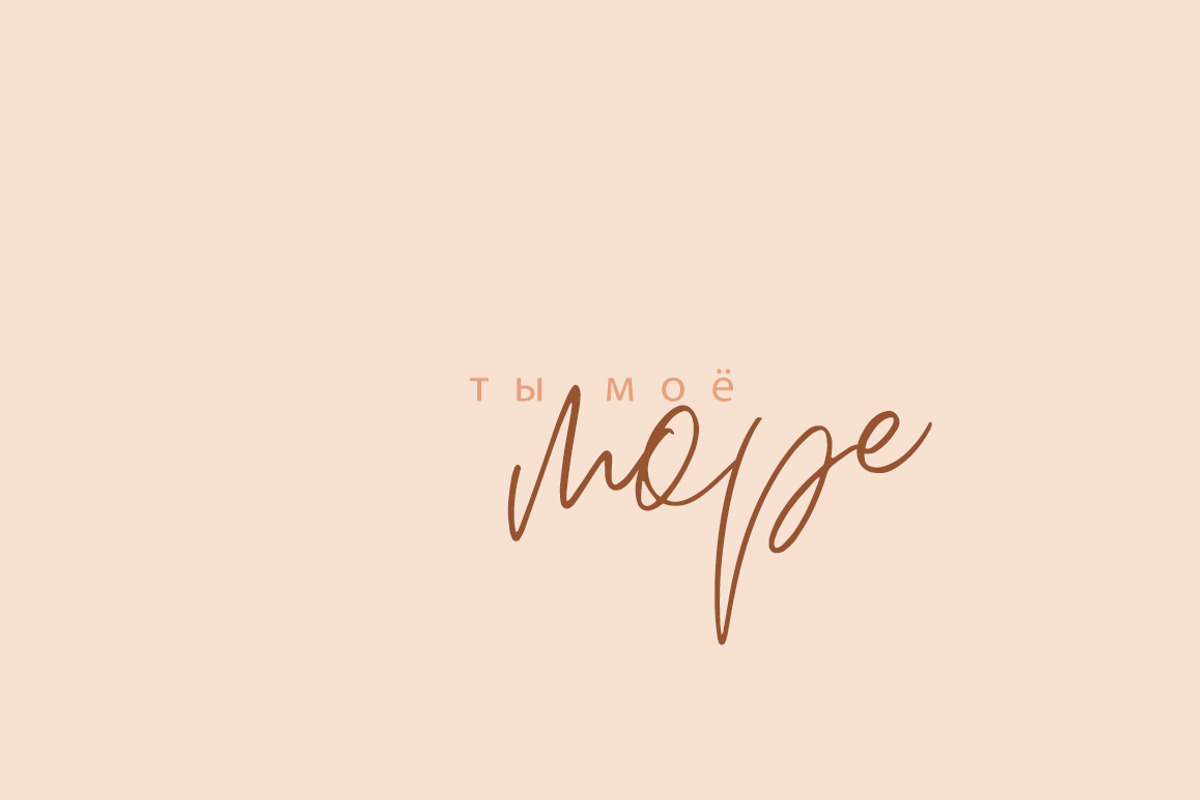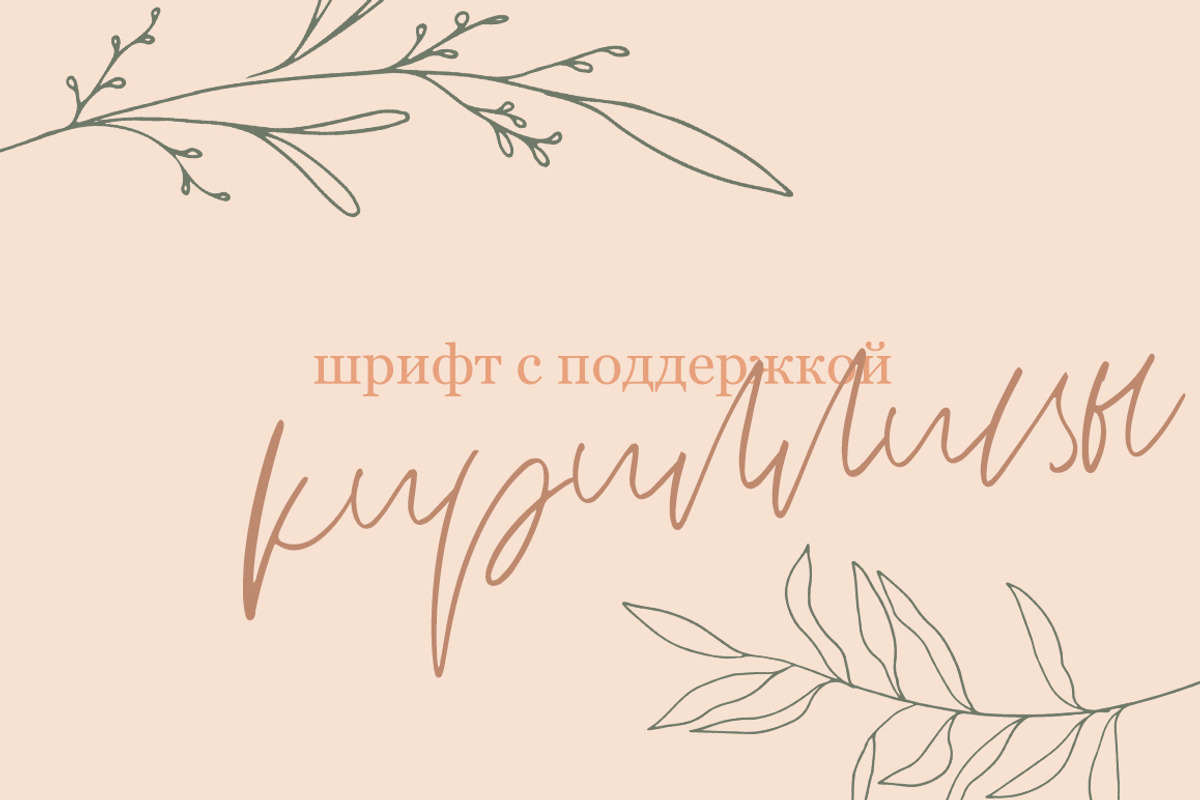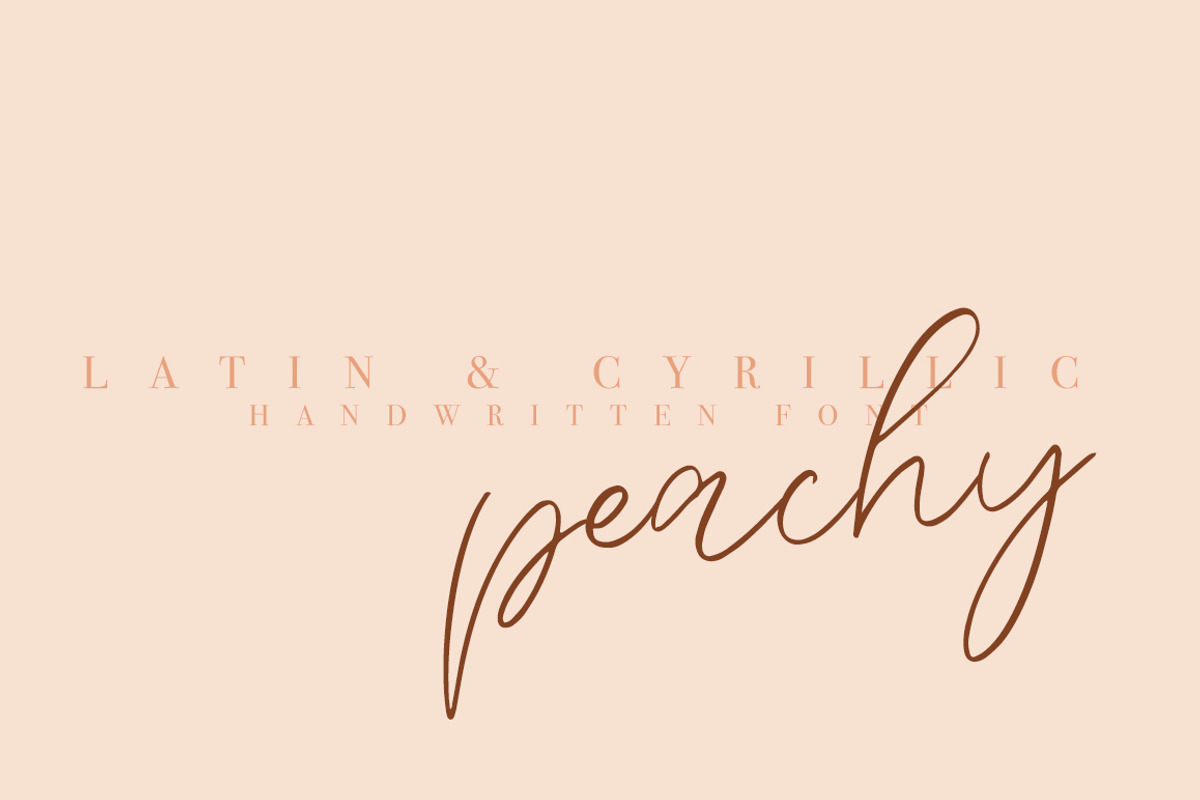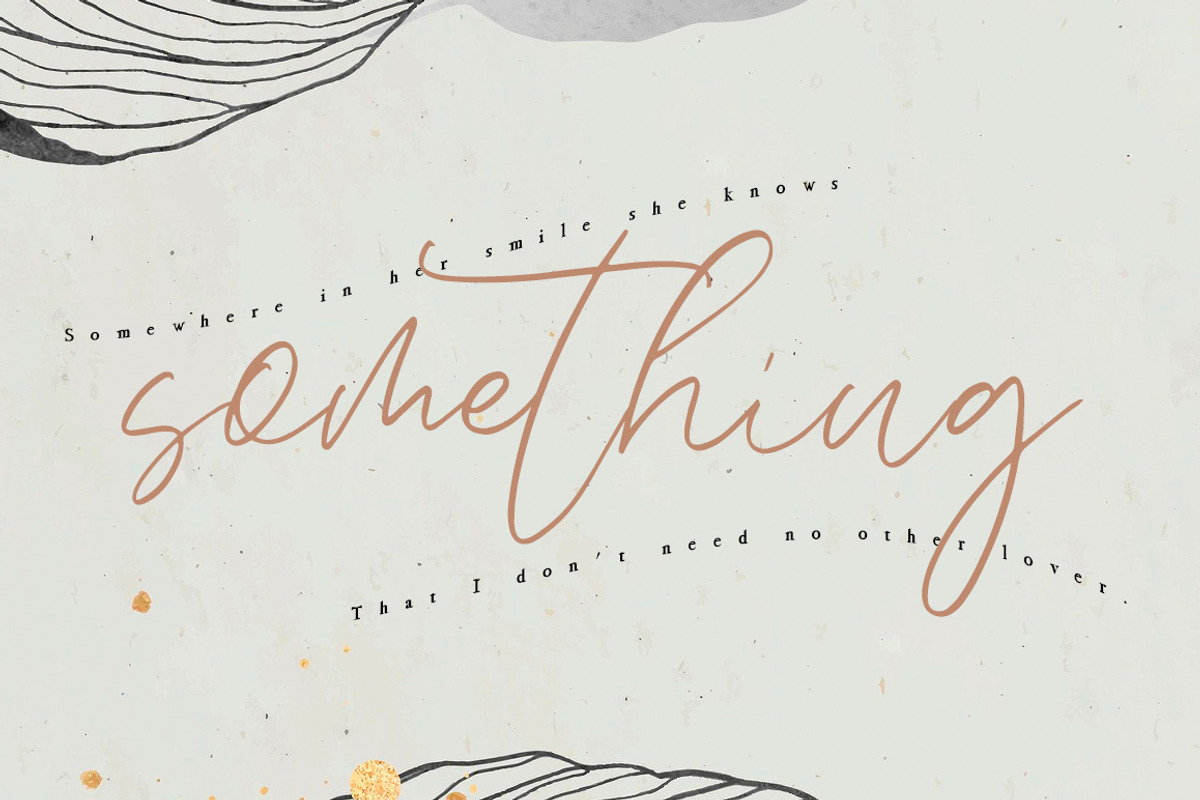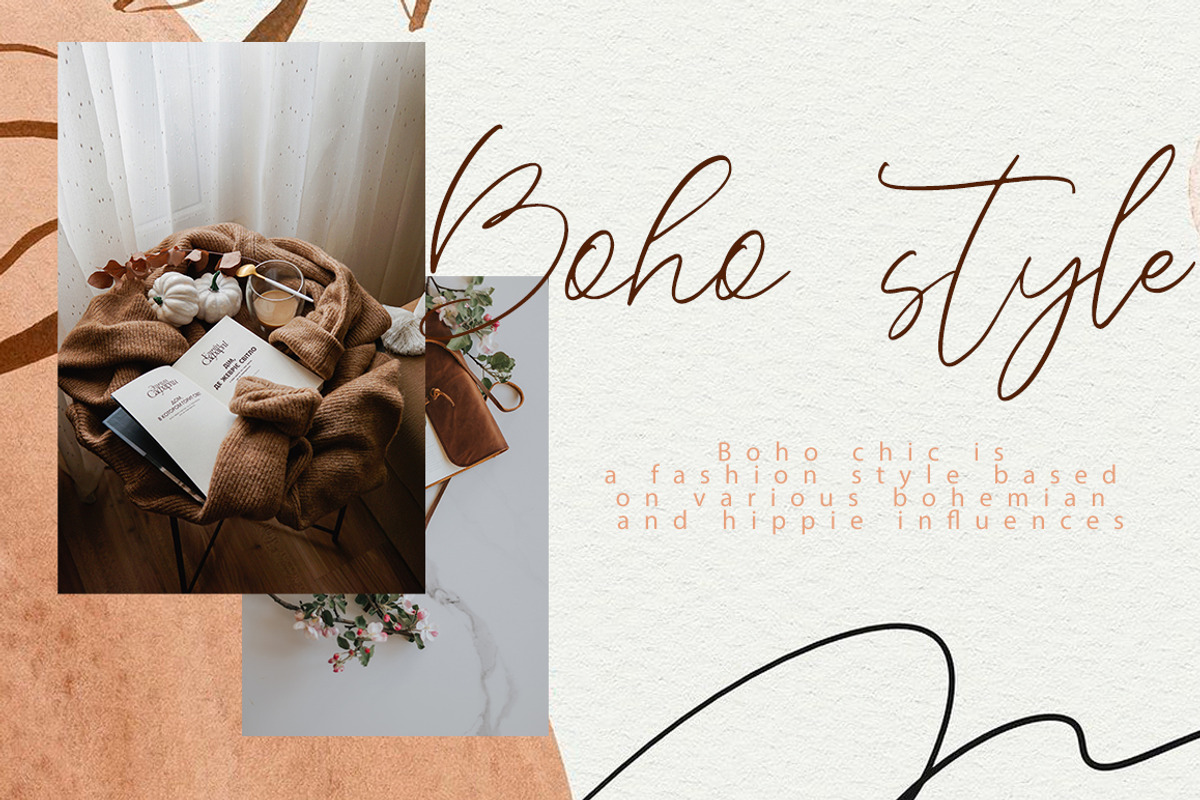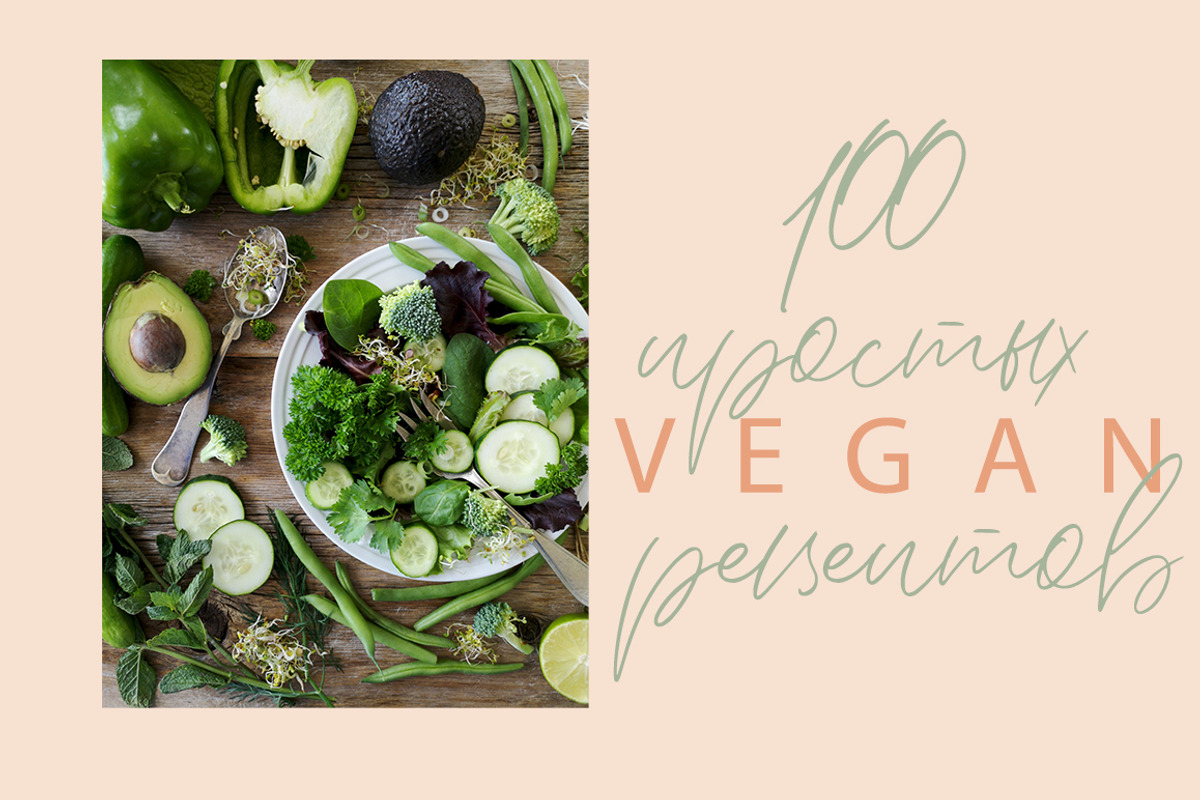
Peachy is sweet and playful, but also Crafty. Every single letters have been carefully crafted to make your text looks beautiful. With modern script style this font will perfect for many different project ex: logo, photography, watermark, quotes, blog header, poster, wedding, branding, logo, fashion, apparel, letter, invitation, stationery, etc . What’s Included :
- CYRILLIC SUPPORT
- Standard glyphs, numbers, punctuation.